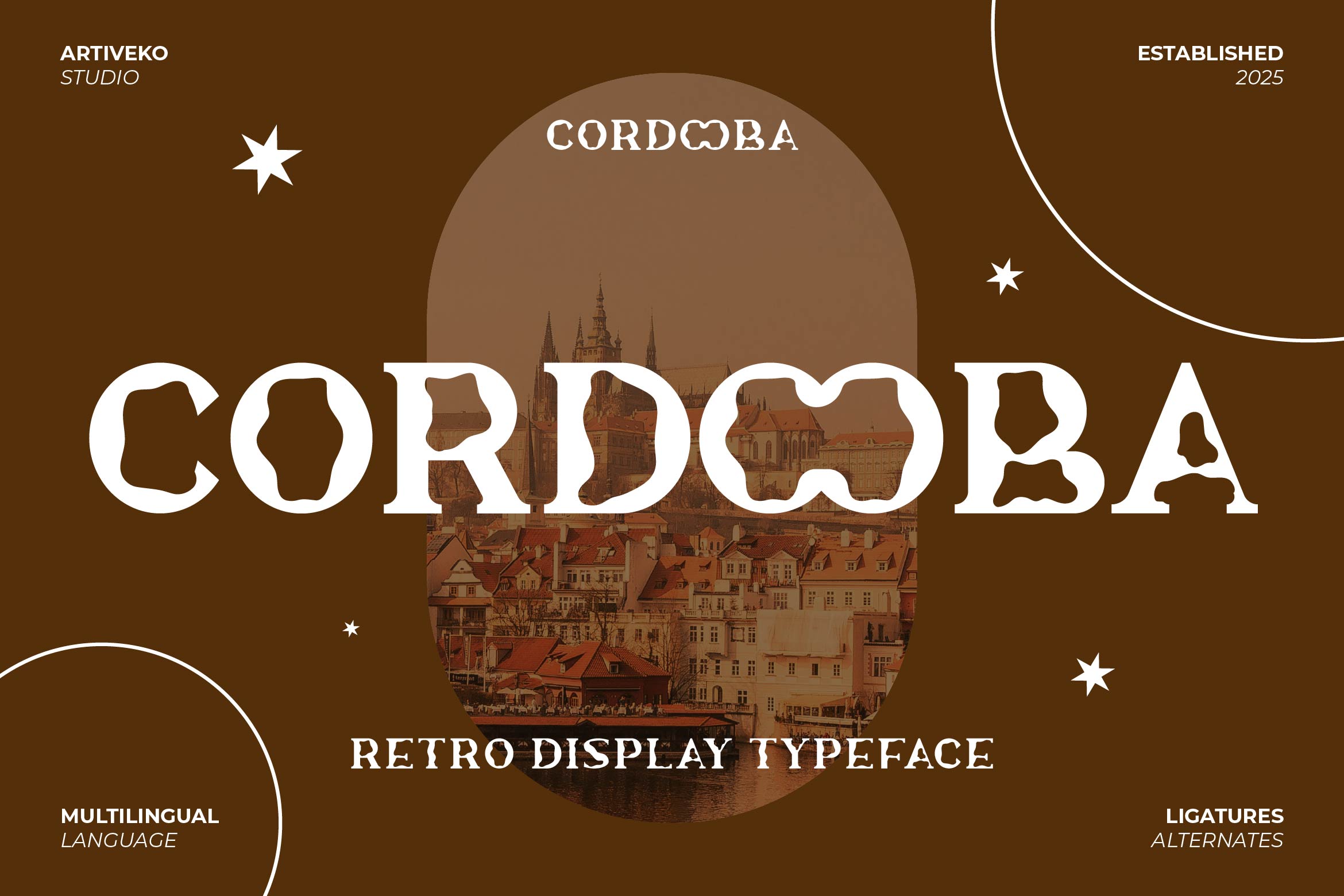
- Cordooba Display Sans Font
Cordooba is a striking display sans serif font designed to make your typography stand out with confidence and clarity. Featuring bold strokes, geometric balance, and clean modern lines, Cordooba is ideal for impactful headlines, logos, posters, packaging, website headers, and social media graphics that demand a strong visual presence.
Its sleek and contemporary aesthetic ensures excellent readability while adding a professional and dynamic tone to your designs. Perfect for branding projects, editorial layouts, and advertising campaigns, Cordooba delivers a versatile and timeless look across print and digital platforms.
The font includes uppercase and lowercase letters, numerals, punctuation, multilingual support, and stylistic alternates for flexible customization and unique typographic expression.
Make a powerful statement with Cordooba — the display sans serif font that blends bold geometry, modern style, and refined elegance.